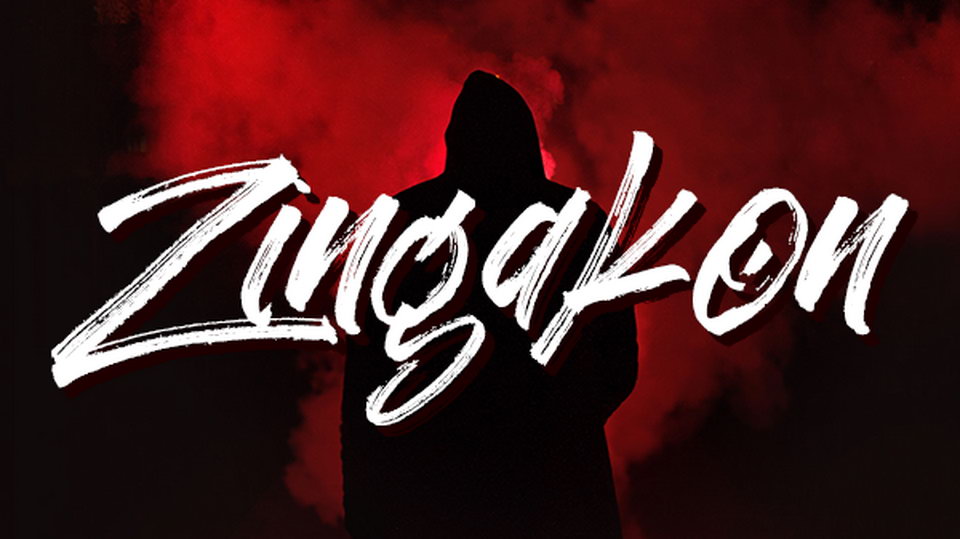
Zingakon is an impressive street-wise hand lettered brush font. It has uppercase, lowercase letters and numbers.
Zingakon font is ideal for logos, apparel, quotes, product packaging, or anything which needs a typographic turbo-boost.